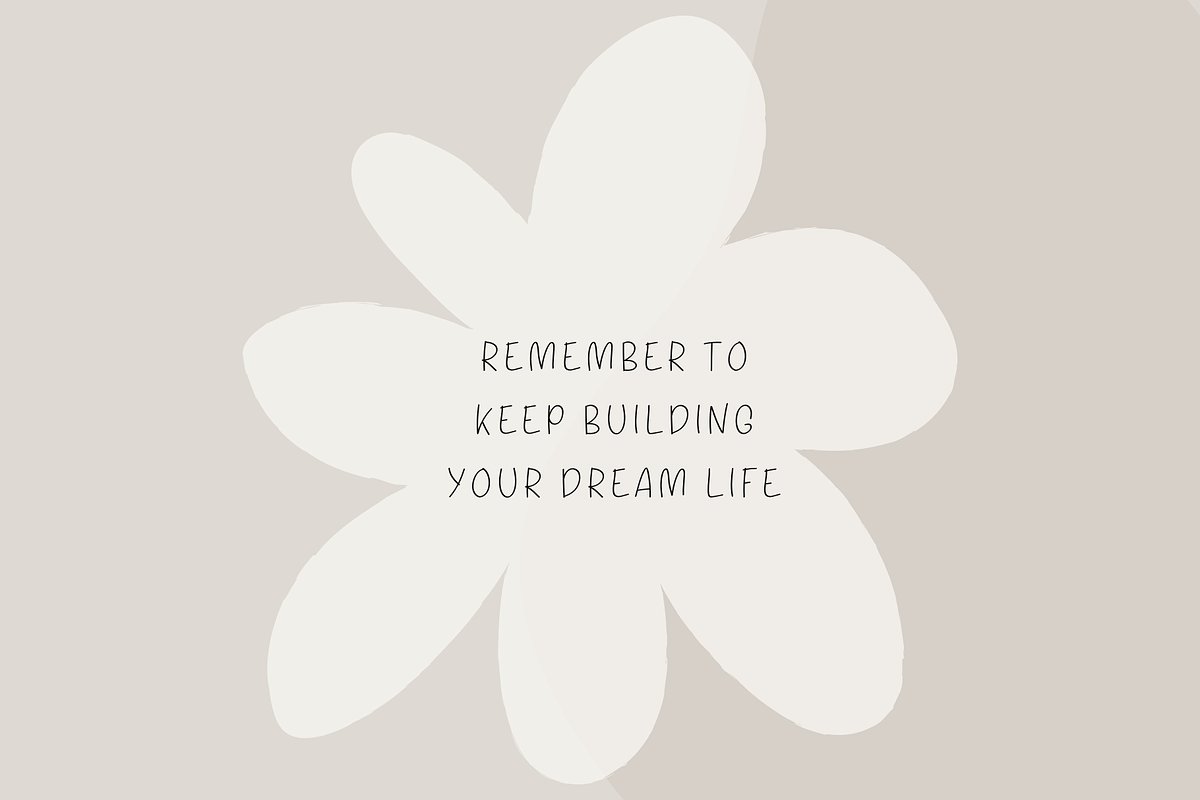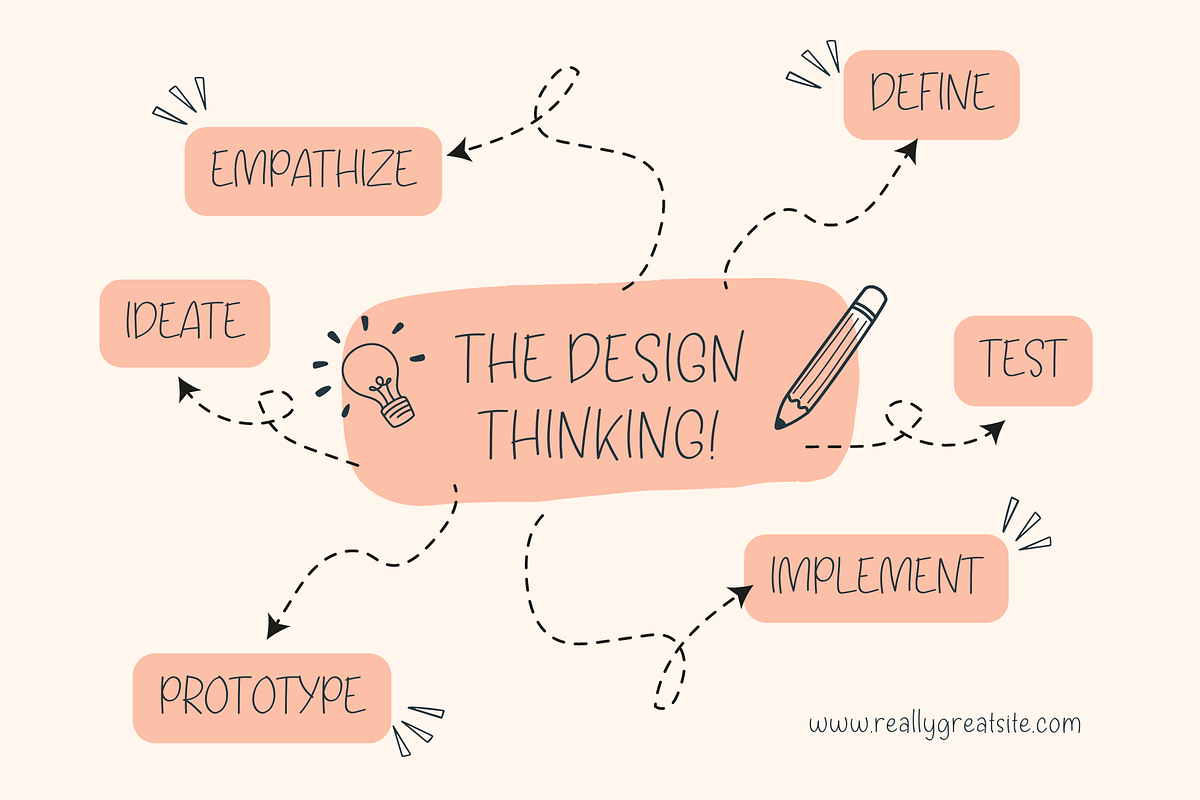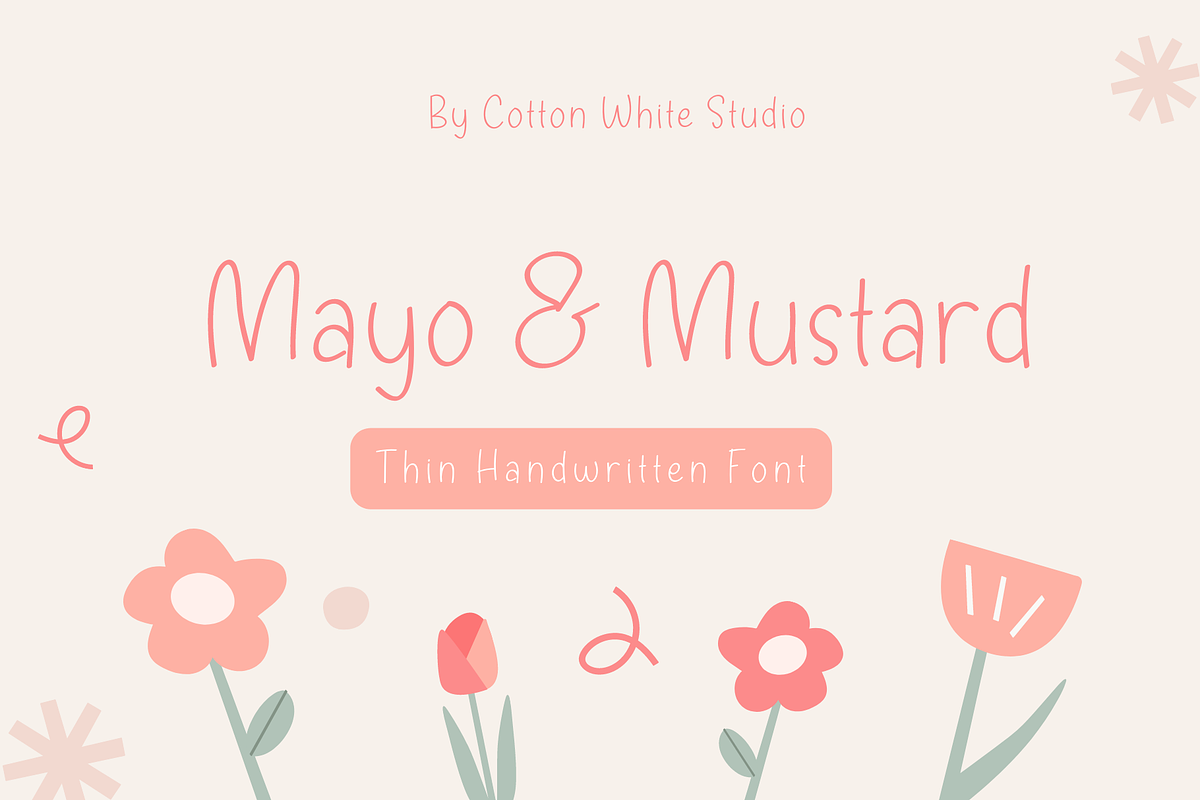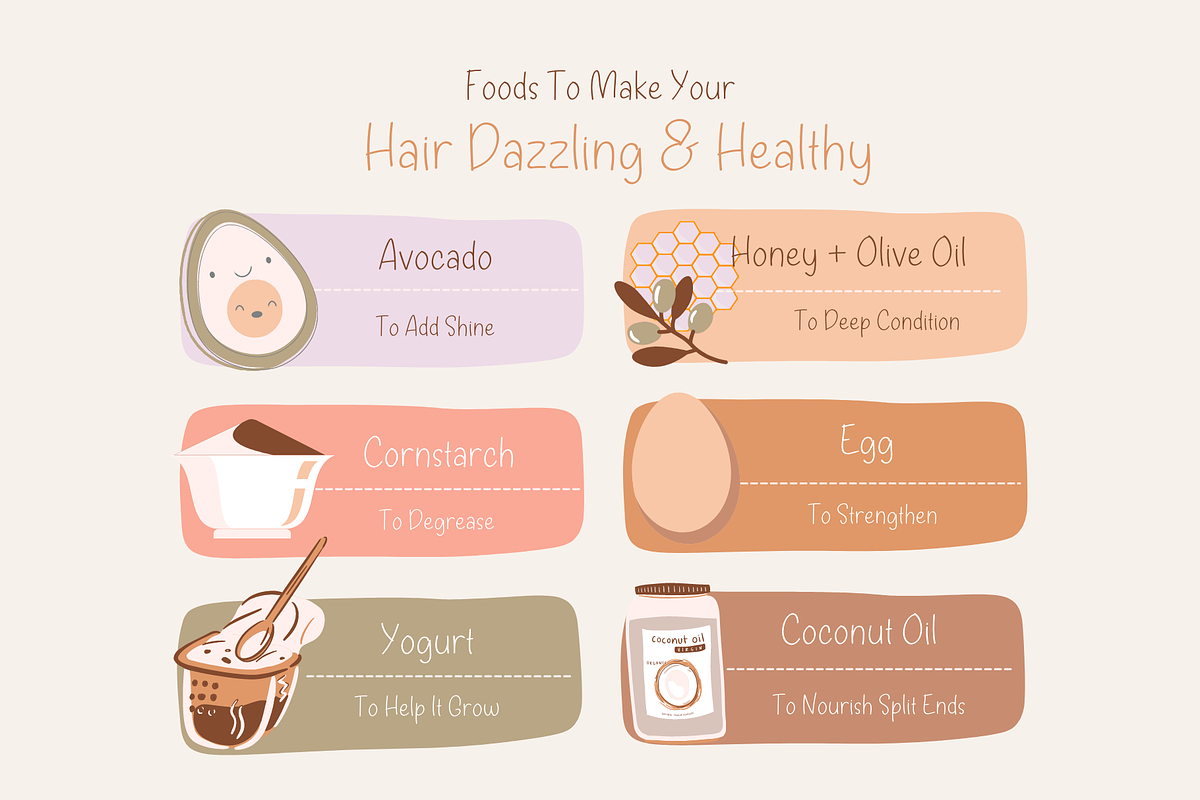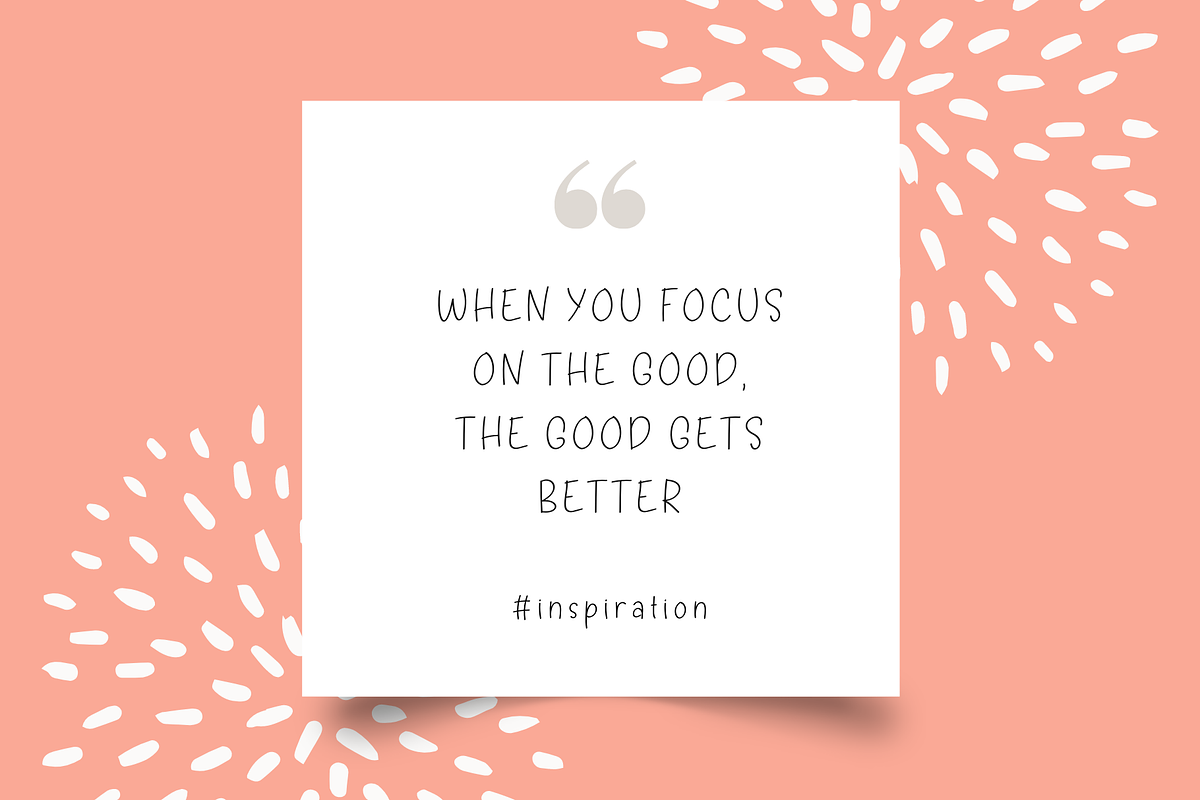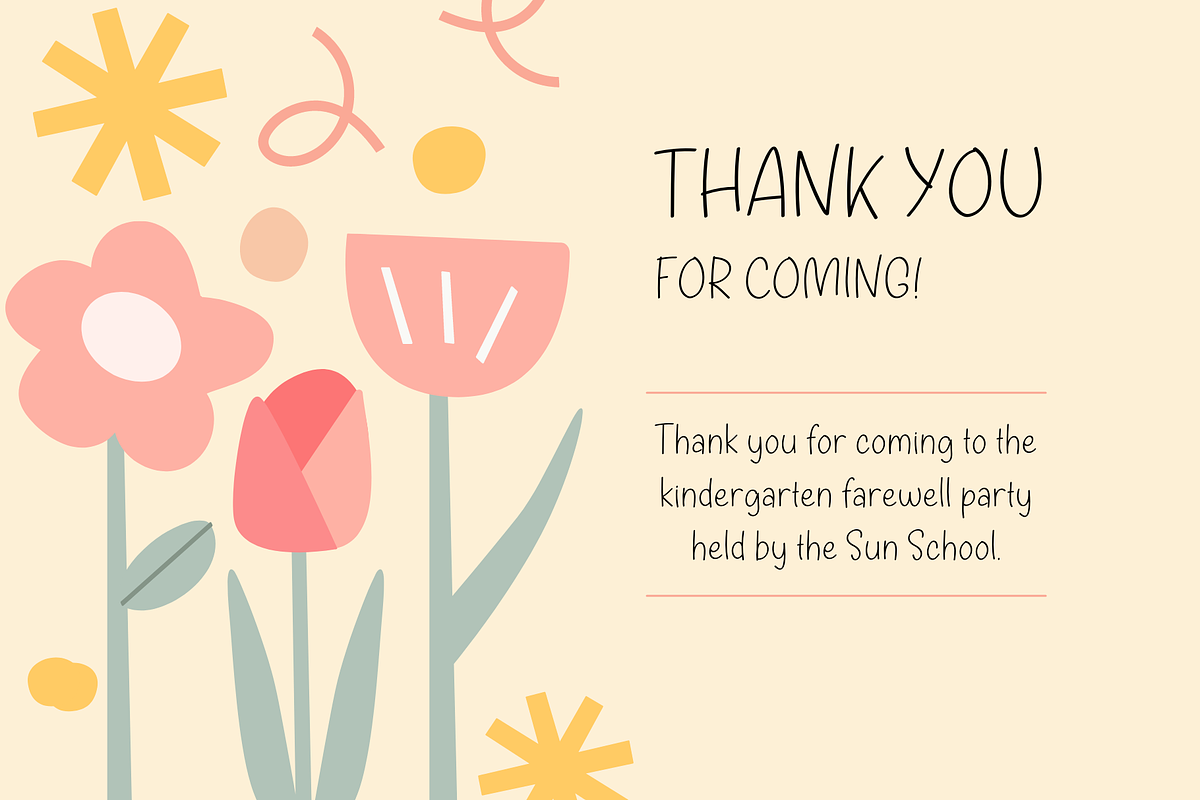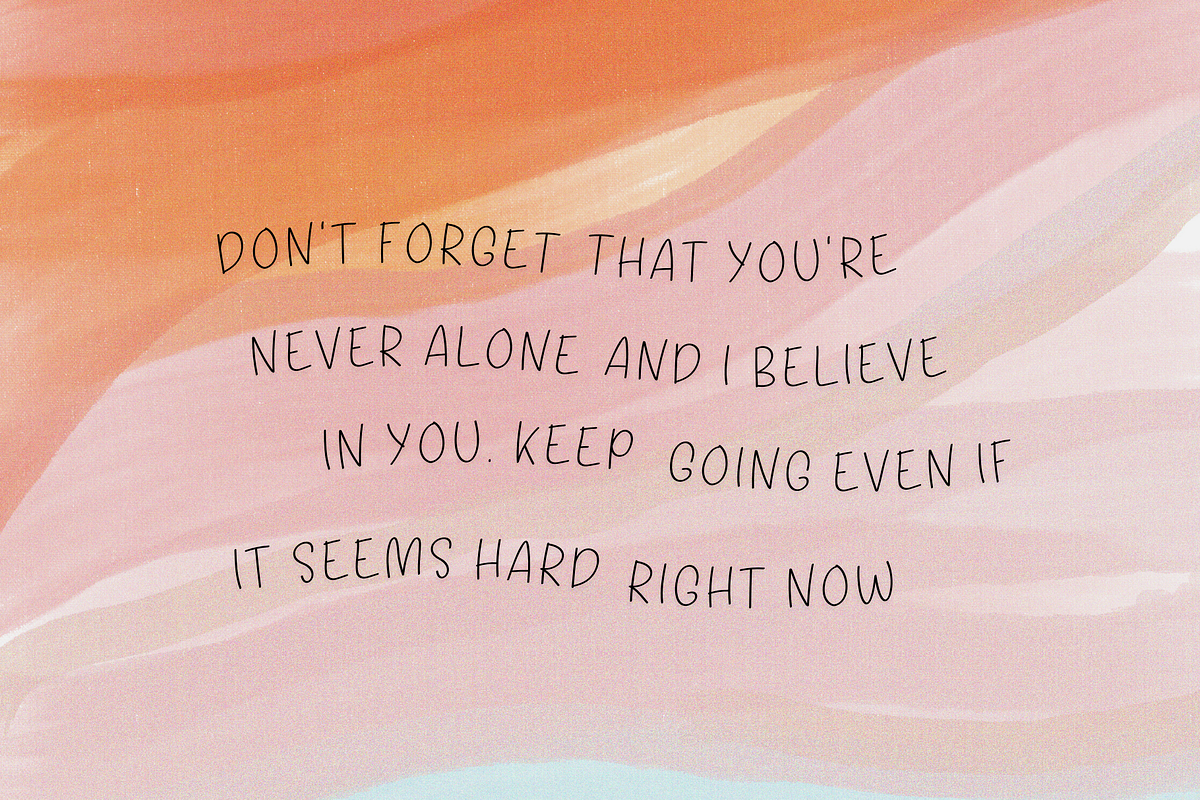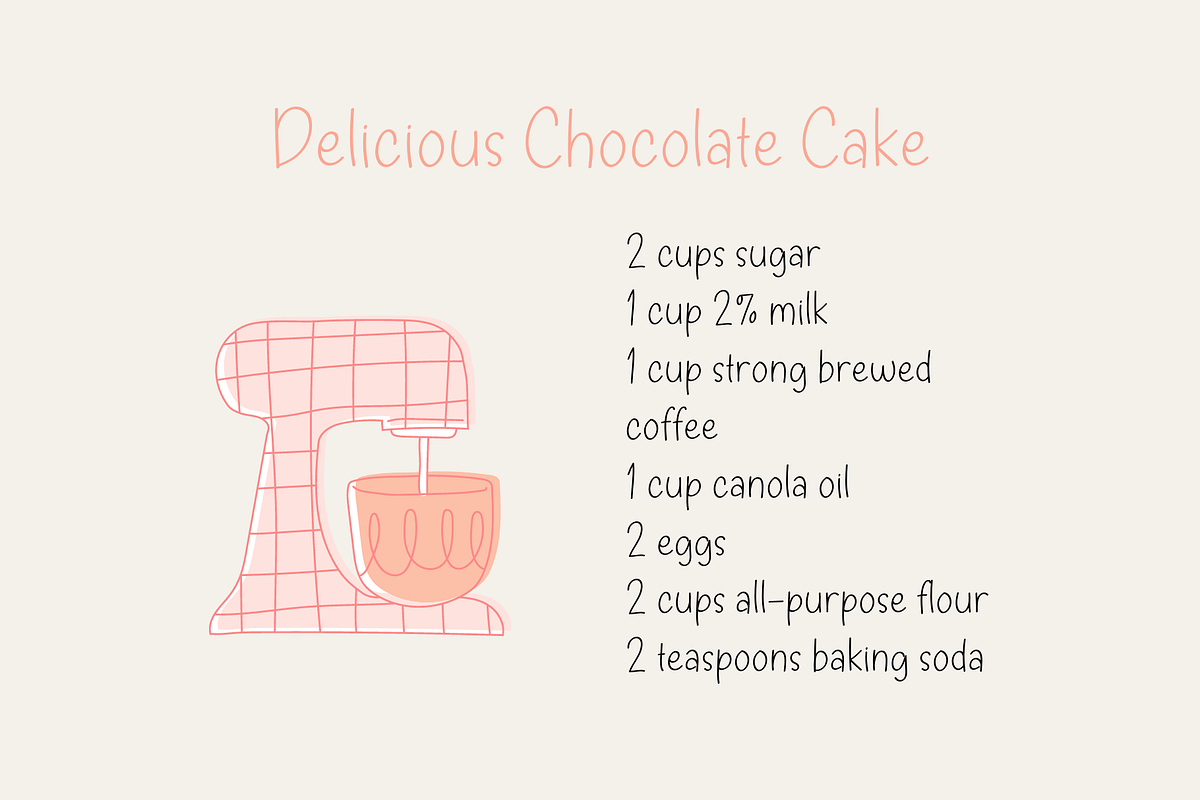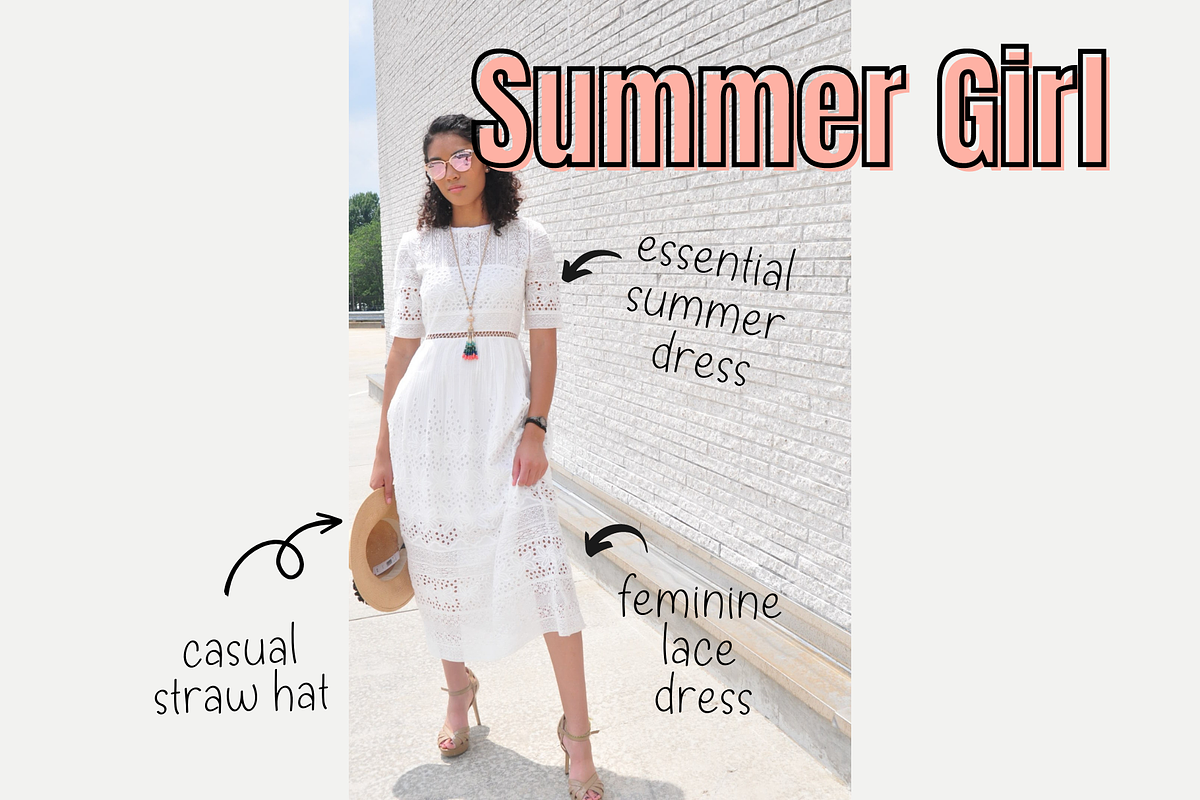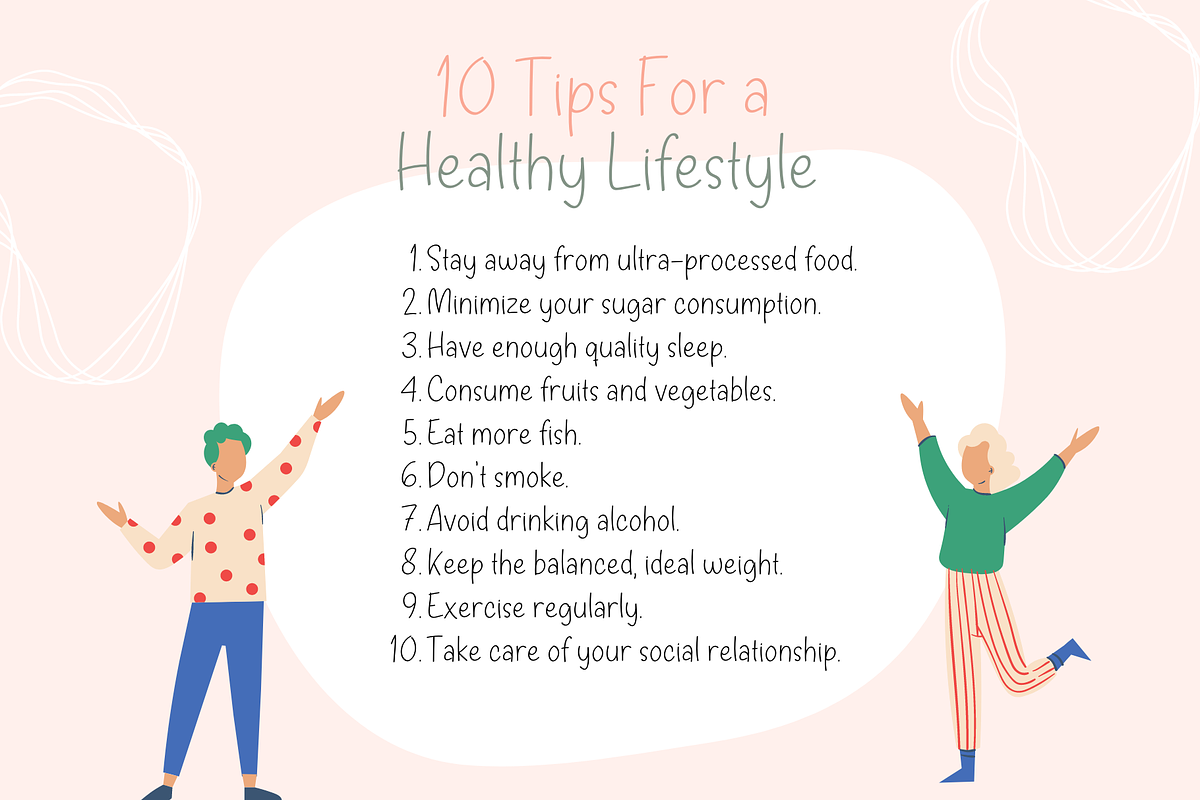
Mayo & Mustard
A font to create super cute logos, branding, notebooks, journals, labels, stickers, blogs, quotes, greeting cards, tea towels, apparel, pillows, mugs, toys, posters, baby clothing, picture books and so much more... basically anything that requires a cute and fun look! 😍